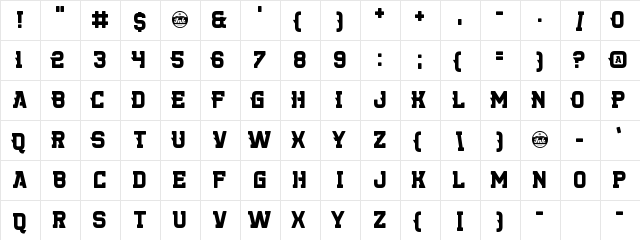
Killer College Regular
Design Context for Killer College Typeface
Killer College has the bold swagger of sports branding: strong, assertive letterforms designed to dominate headlines and jerseys alike.
A natural choice for gym brands, fantasy sports, jersey lettering, and action-driven headlines.
Pro Tip: Use Killer College in all-caps headlines where its athletic energy can fully express itself. Pair with a solid, simple sans for supporting text.